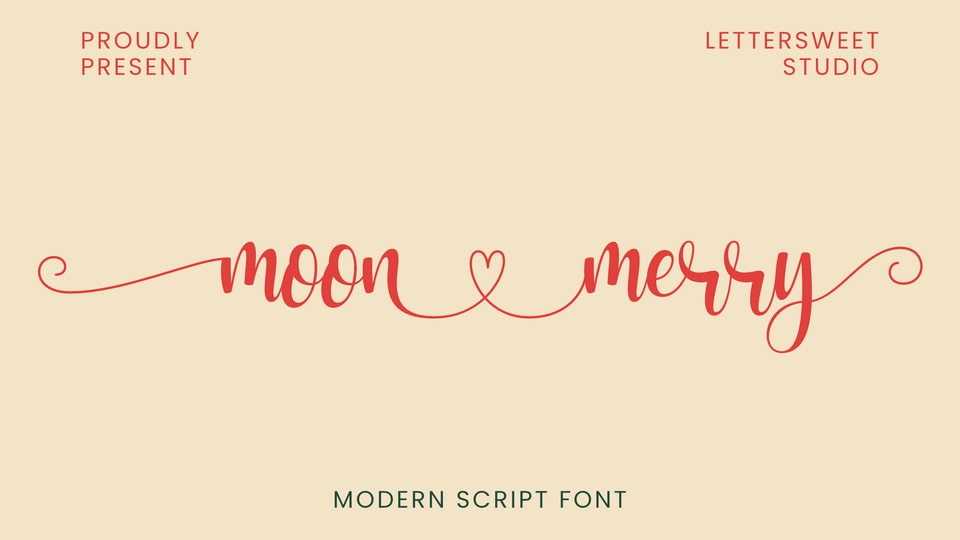
Download Moon Merry font, a romantic and sweet calligraphy typeface with characters that dance along the baseline. It will add a luxury spark to any design project that you wish to create!